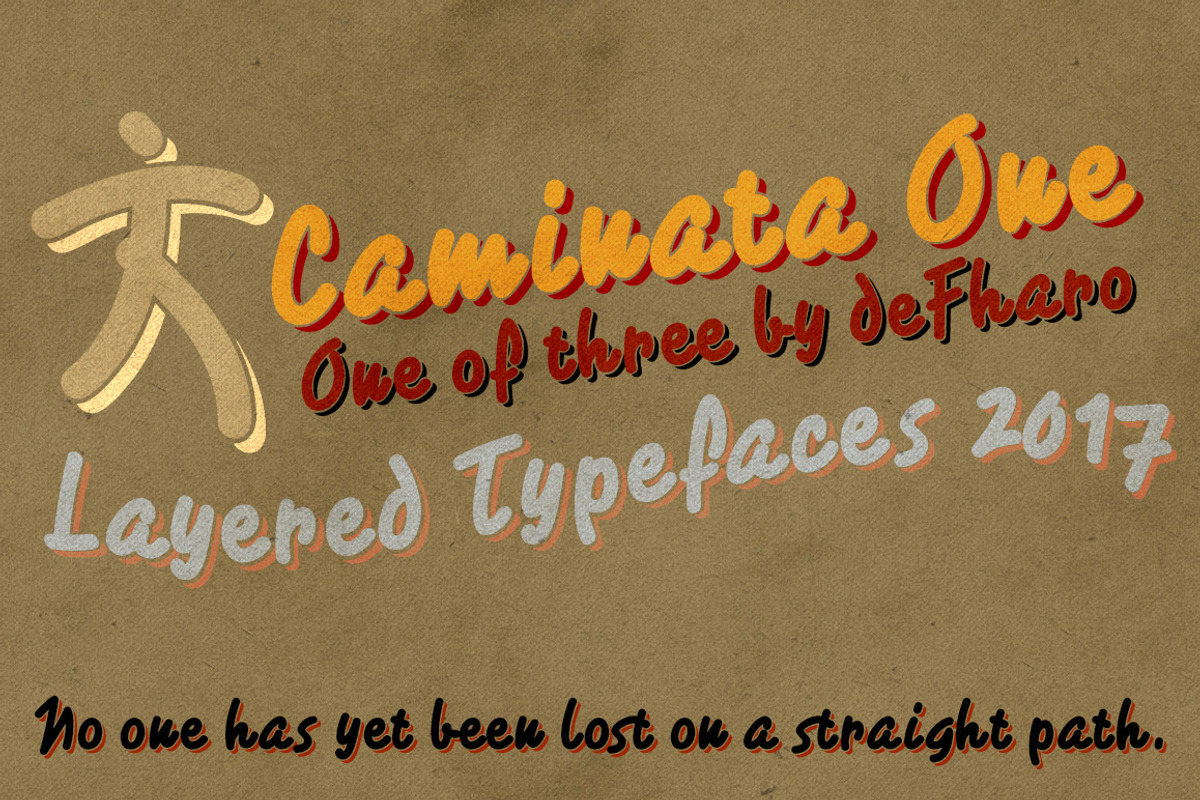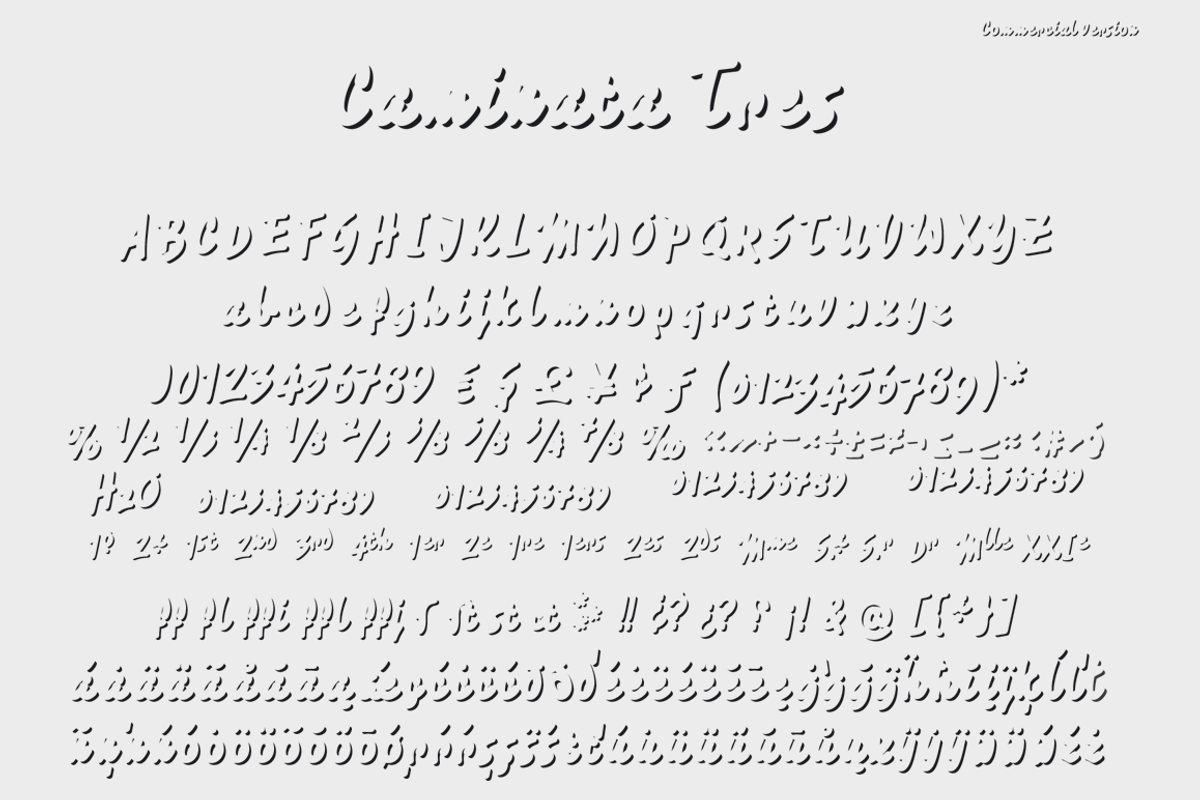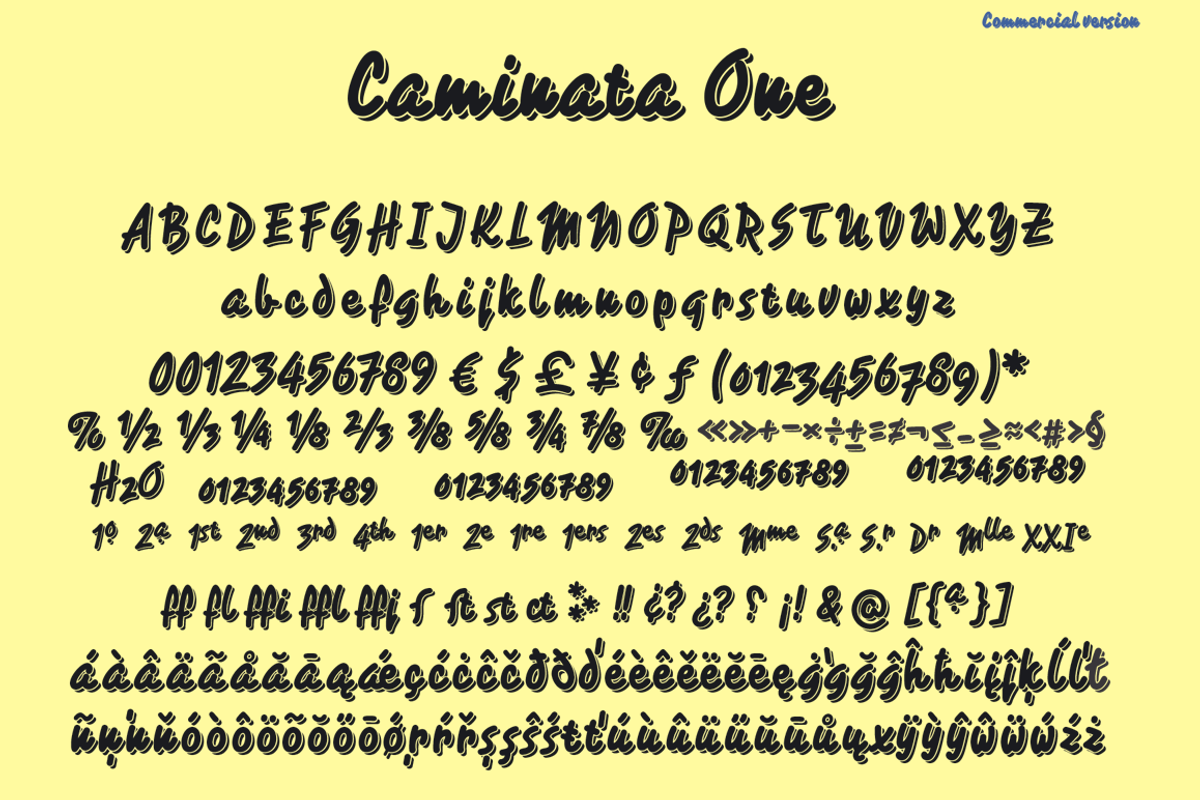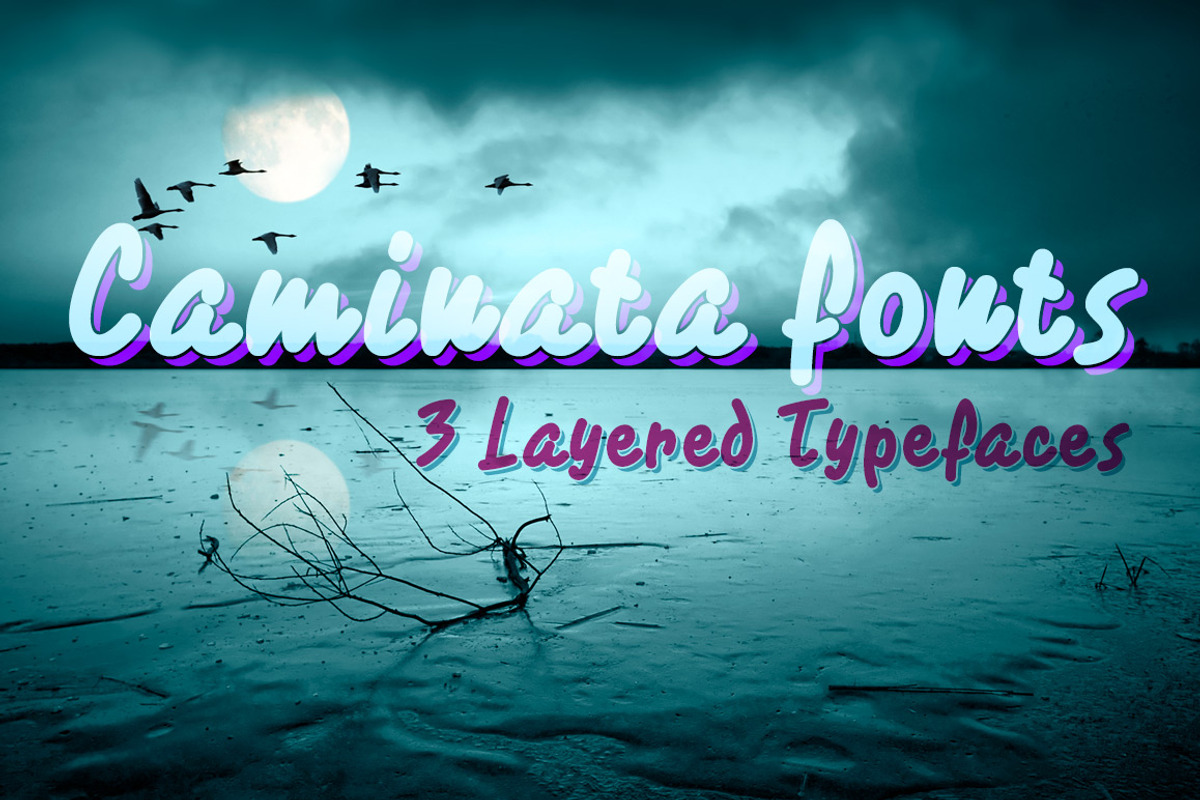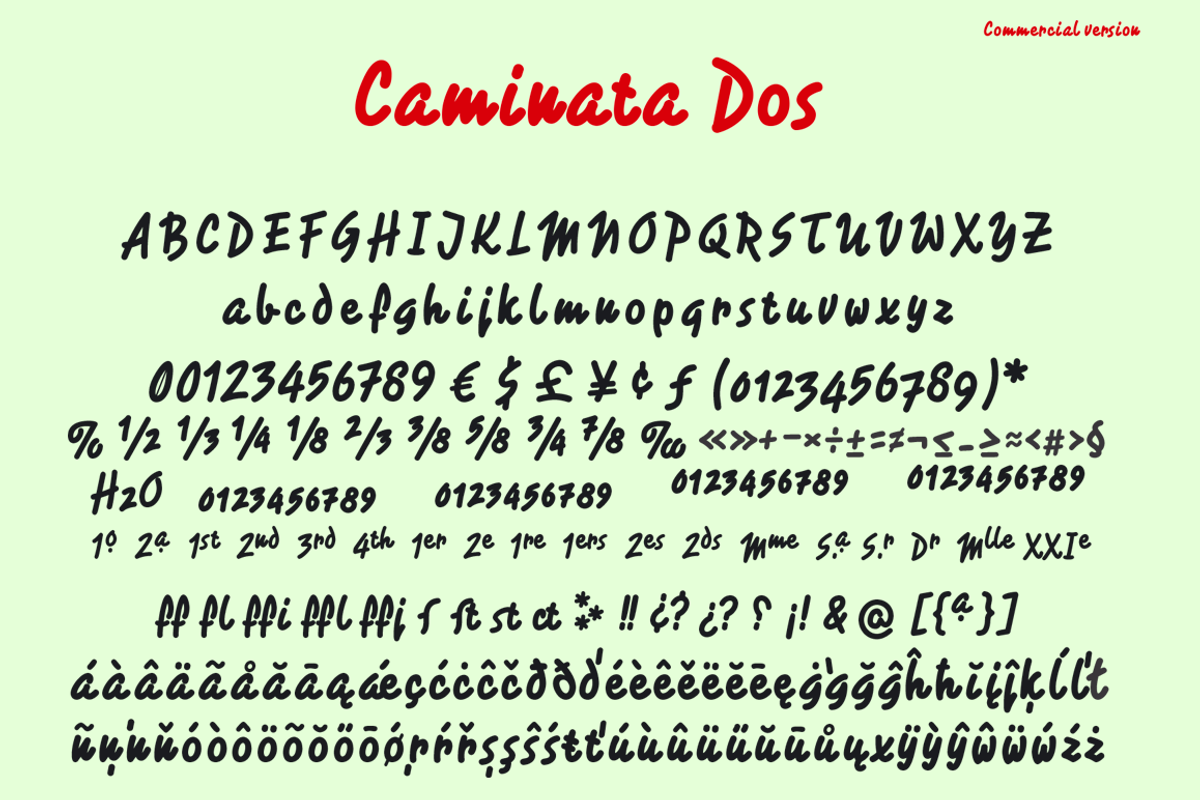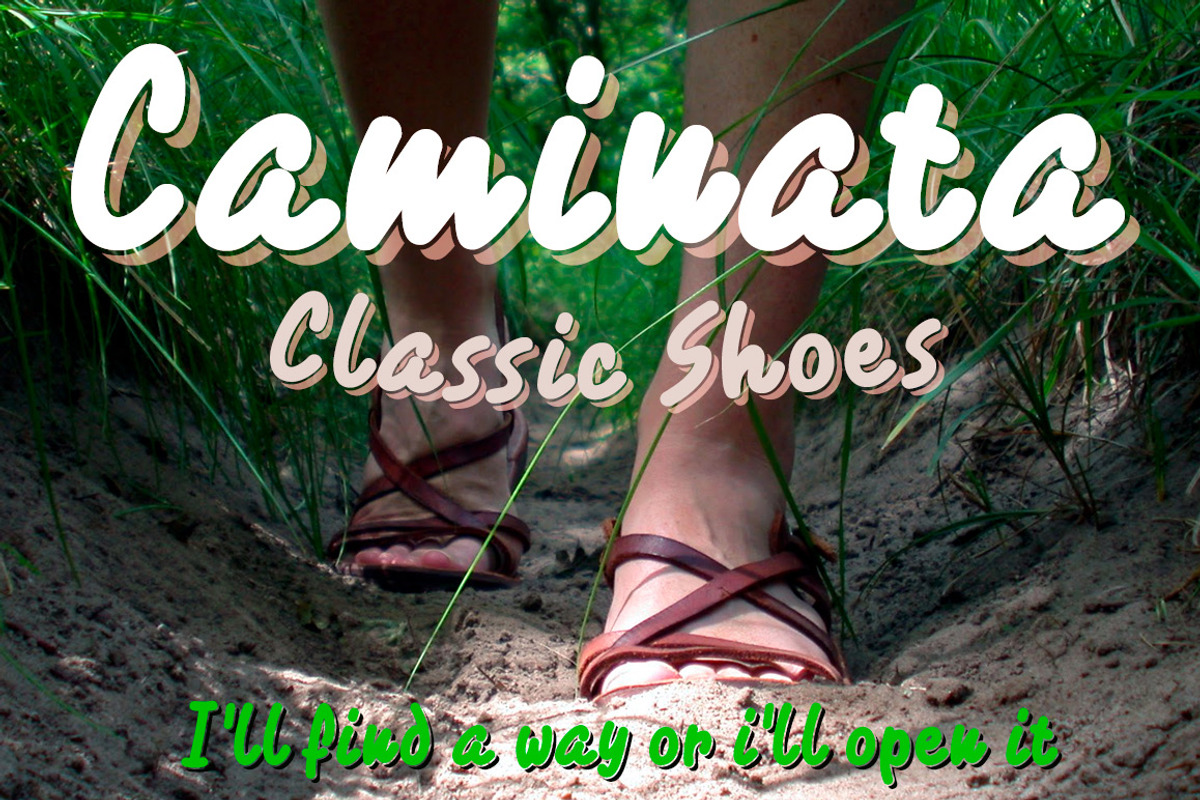
Caminata fonts
-Caminata- are three thick handwritten fonts layered with shade, made with a fat-tipped ballpoint pen, retro and elegant, are perfect for designing posters, flashy headlines, commemorations, invitations or any text where a contrast is sought manual style compared to other neutral fonts such as Sans or Serif.
OpenType Functions: Localized Forms, Extended Fractions, Superscript, Discretionary Ligatures, Superiors, Fractions, Denominators, Superior letters, Ordinals, Scientific Inferiors, Standard Ligatures, Subscript, Oldstyle Figures, Numerators, Slashed Zero, Historical Forms, Historical Ligatures, Inferiors, All Alternates, Kerning, Additional languages.
Bitcoin symbol: b# (ligatures)
- Caminata Dos Regular
- Caminata One Regular
- Caminata Tres Regular